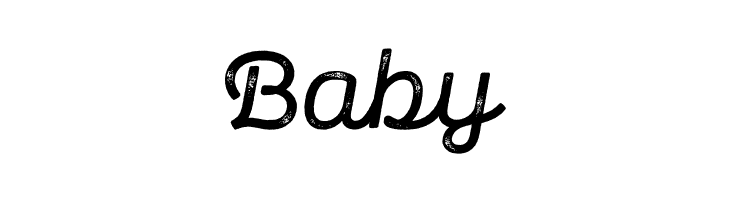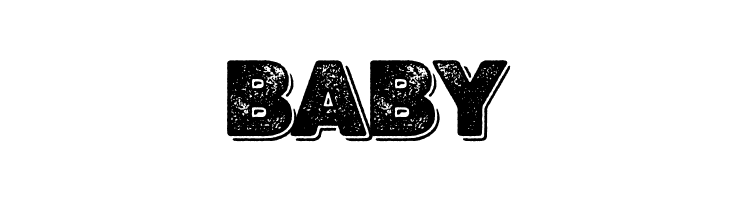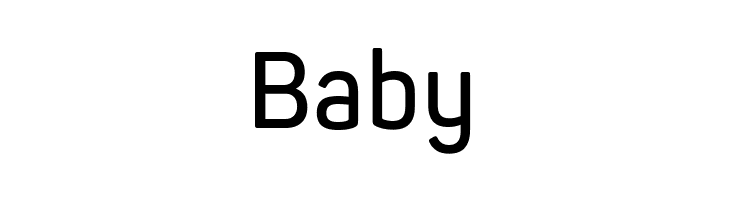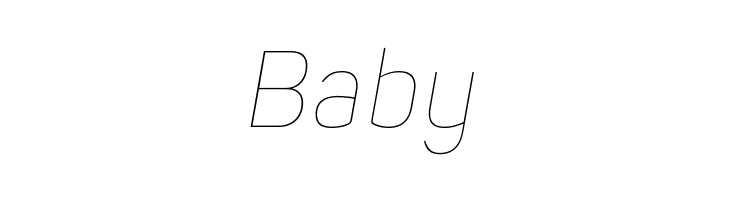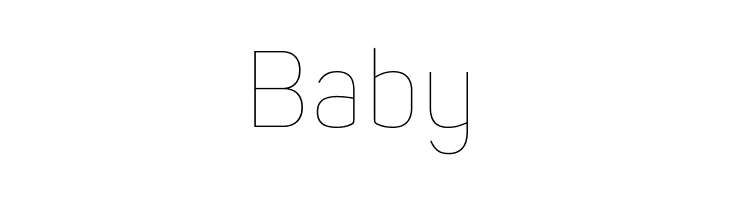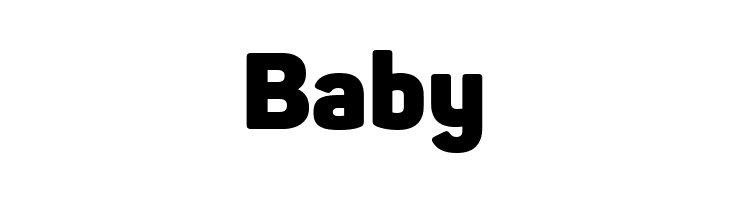
A modern, narrow sans-serif font with a semi-bold weight.
A modern, narrow, semi-bold italic font with a sleek and dynamic style.
A sleek, modern, and narrow font with a thin, geometric design.
A sleek, narrow, and italicized font with a modern and elegant style.
A bold, narrow, and modern font ideal for impactful headlines.
A bold, distressed font with a grunge texture and shadow effect.
A bold, grunge-style font with a heavy shadow effect and distressed texture.
A semi-bold script font with a grunge texture and dynamic flow.
A bold, grunge-textured script font with a rustic and vintage appeal.
A bold, modern font with smooth curves and uniform strokes.